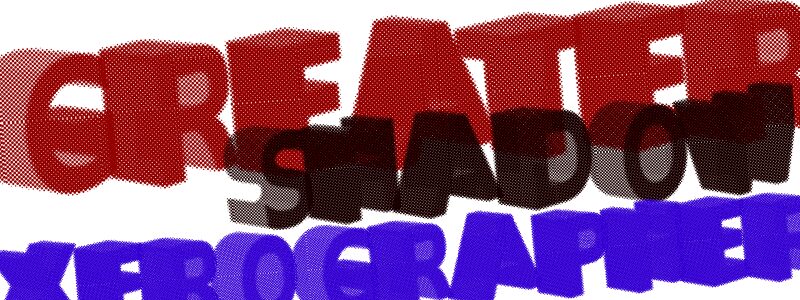
GreaterShadow by Xerographer Fonts is a free 3D display font with massive, tightly packed capitals and deep offset shading. Halftone dots soften the dense forms.
Snack packaging can use its inflated silhouette for a loud, playful product name, and music posters pick up a similarly oversized stage presence. The same comic heft also suits arcade graphics and streetwear merchandise. The dotted shadow is more than decoration: it gives those applications a printed-comic texture that links the lettering directly to colorful pop illustration.